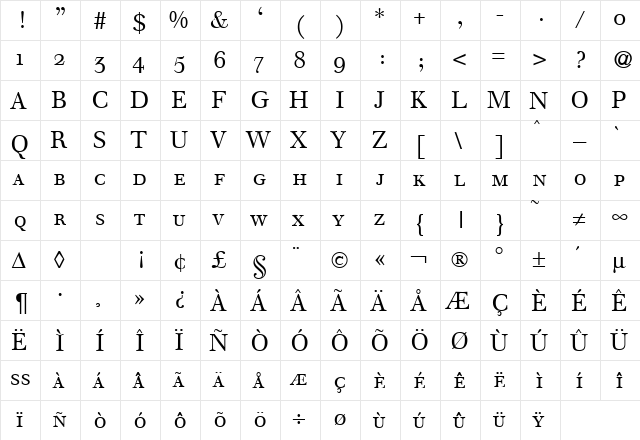
WalbaumOriginalSmc Regular
Design Context for WalbaumOriginalSmc Typeface
WalbaumOriginalSmc takes a measured approach to typography — its balanced proportions and neutral character make it a reliable workhorse for both digital and print work.